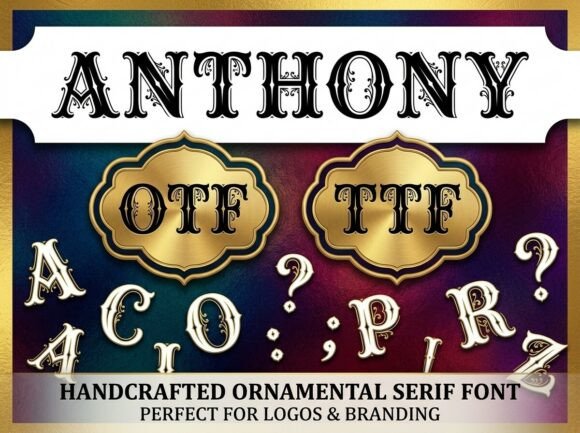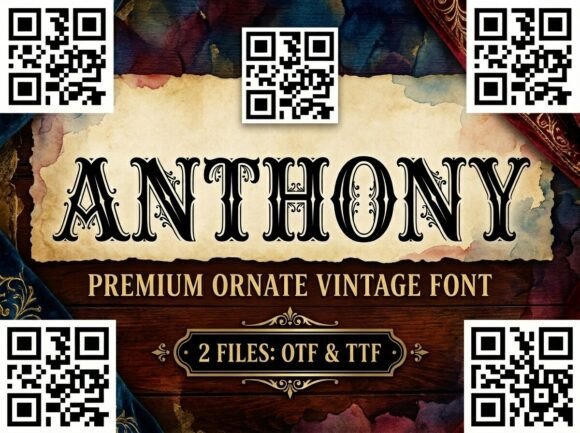
The Ultimate Display Font: Anthony Font Review and Guide
I’ll never forget the moment I stumbled upon a font that completely transformed my design project. I was working on a branding campaign for a luxury client, and I needed a font that would make their headlines pop. After hours of searching, I discovered Anthony Font, a stunning decorative display font that instantly caught my attention. Its unique artistic elements and strong visual personality made it the perfect fit for my project. In this article, I’ll share my experience with Anthony Font, its features, and how to make the most of it in your designs.
Anthony Font: A Closer Look
Anthony Font is a decorative display font designed to be the center of attention. With its unique artistic elements and strong visual personality, it’s perfect for creators who want to break away from the ordinary. This font is versatile enough for bold headlines, artistic logos, and creative packaging, while maintaining a professional and polished finish.
The Good ✨
- Unique and artistic design that’s perfect for making a statement ✅
- Strong visual personality that adds a touch of sophistication to any design 💼
- Versatile and can be used for bold headlines, artistic logos, and creative packaging 📦
- Professional and polished finish that elevates any design 💯
The Not-So-Good 🤔
- Anthony Font is an ALL-CAPS (Uppercase Only) display typeface ⚠️
- No lowercase letters, which may limit its use in certain designs 📝
The Story Behind Anthony Font
Anthony Font was designed by a talented type designer who wanted to create a font that would make a statement. Inspired by the art of calligraphy and the world of luxury branding, Anthony Font was born. Its unique artistic elements and strong visual personality make it the perfect fit for designers who want to add a touch of sophistication to their projects.
Q: Is Anthony Font suitable for body text?
A: No, Anthony Font is a display font designed for headlines and titles. It’s not recommended for body text due to its decorative nature and lack of lowercase letters.
Q: Does Anthony Font include any OpenType features?
A: Yes, Anthony Font includes OpenType features such as glyphs and stylistic alternates. You can access these features in compatible design software like Adobe Photoshop or Illustrator.